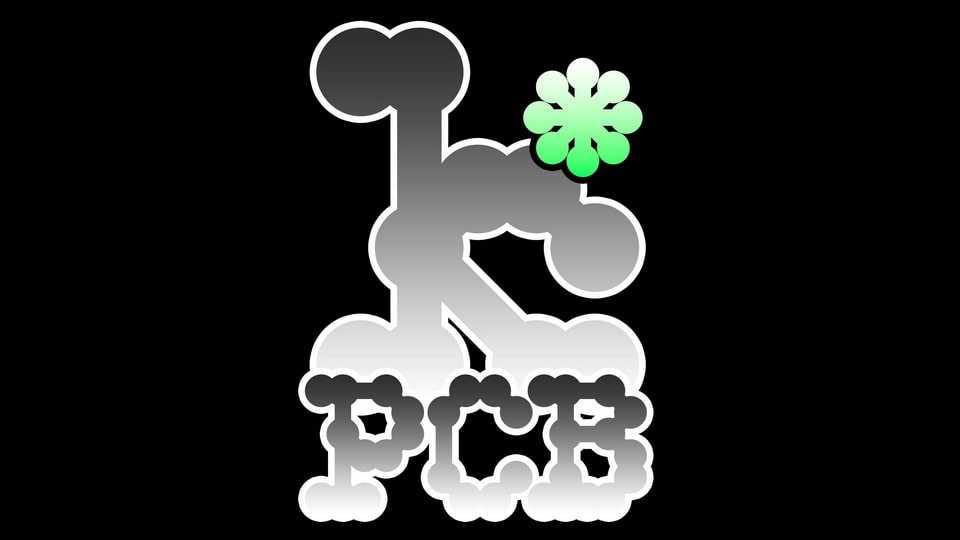
Download PCB font, a two axis variable typeface crafted using a series of interconnected dots and lines, offering a dynamic and customizable typeface experience.
Designer: Maxence Duterne